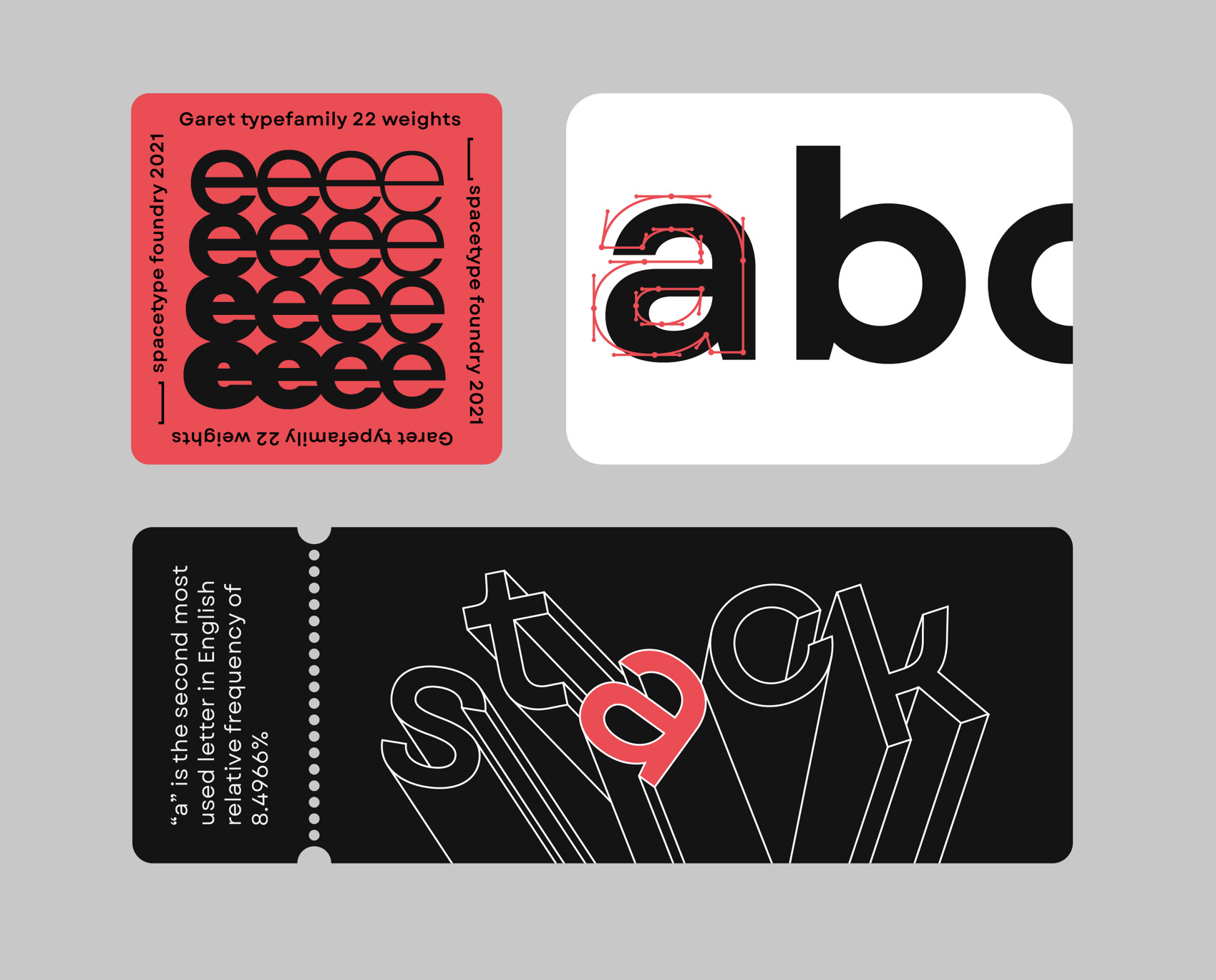
Play with Garet - a Geometric Typeface
Meet Garet - a modern geometric sans serif typeface by Spacetype. It is characterized by clean and soft letterforms and a smooth masculine tone. Garet type family consists of 11 weights ranging from quite thin to extremely fat and their corresponding Italics. Plus one variable font that combines all weights in one file.
We’ve been polishing the font family for months and wanted to showcase it properly. But we think that the conventional font markets don’t provide the necessary environment for the user to get familiar with a typeface.
Spacetype also decided to create a microsite to showcase the typeface in a tangible and playful way.
Inside the microsite, you can interact with the font family - can experiment with some of the features in detail and get the opportunity to become acquainted with the use of variable fonts.